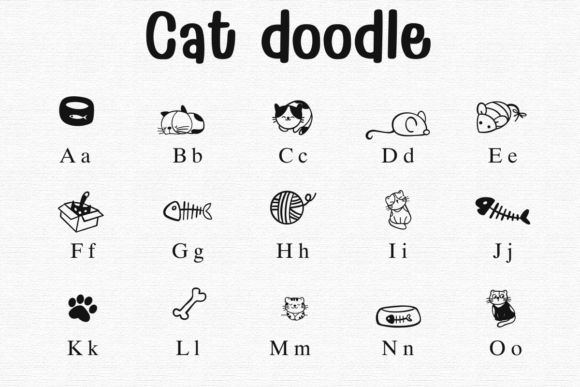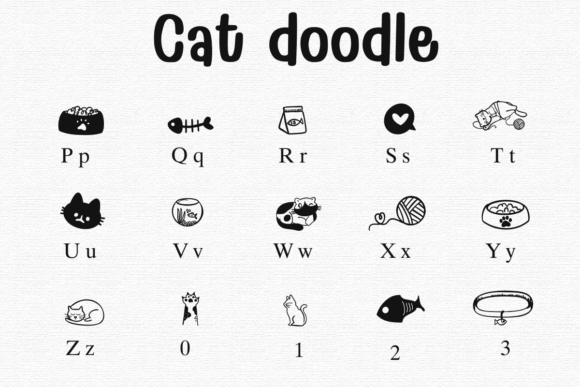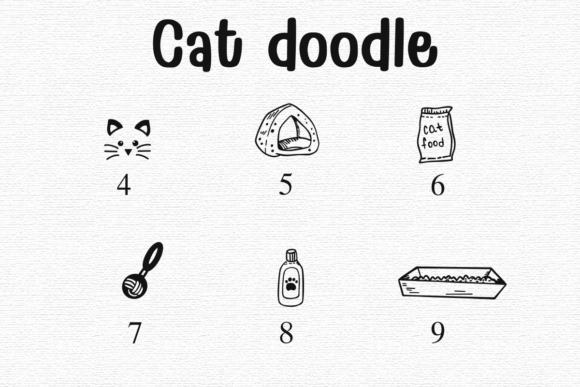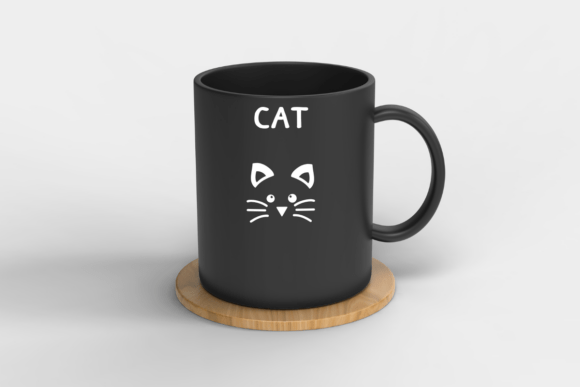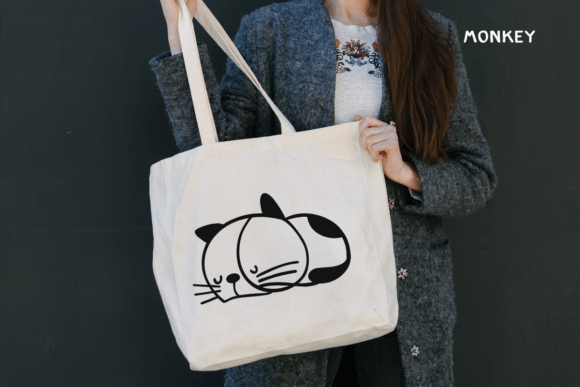
The Purrfect Font: A Deep Dive into Cat Doodle
I’ll never forget the time I was working on a cat-themed printable for a client’s pet store. I had all the design elements ready, but I was struggling to find the right font. That’s when I stumbled upon Cat Doodle, a cute dingbats font that instantly brought my design to life. In this article, I’ll share my experience with Cat Doodle, its features, and how to make the most of it in your designs.
What Makes Cat Doodle Special?
Cat Doodle is a unique font that combines adorable kitty-themed illustrations with a playful vibe. It’s perfect for pet stores, animal lovers, or anyone looking to create cute cat-themed printables. The font includes a wide range of illustrations, such as paw prints, yarn, fish bones, and sleeping cats.
Here’s what I love about Cat Doodle:
• ✨ Cute and playful illustrations: The font is packed with adorable kitty-themed illustrations that will make your designs stand out.
• 💕 Perfect for cat lovers: The font is designed specifically for cat-themed designs, making it a must-have for pet stores or animal lovers.
And here are some minor quirks to keep in mind:
• 🤔 Limited character set: As a dingbats font, Cat Doodle has a limited character set, which may not be suitable for text-heavy designs.
The Story Behind Cat Doodle
Cat Doodle was designed by a team of creatives who wanted to create a font that would bring a smile to cat lovers’ faces. The designers drew inspiration from their own feline friends and the joy they bring to people’s lives. The result is a font that’s both playful and adorable, perfect for anyone who loves cats.
What type of designs is Cat Doodle best suited for? Cat Doodle is perfect for cat-themed designs, such as pet store promotions, animal shelter materials, or cute cat printables.
Is Cat Doodle available in other languages? Cat Doodle is a dingbats font and does not support language-specific characters. However, it can be used in conjunction with other fonts to create multilingual designs.